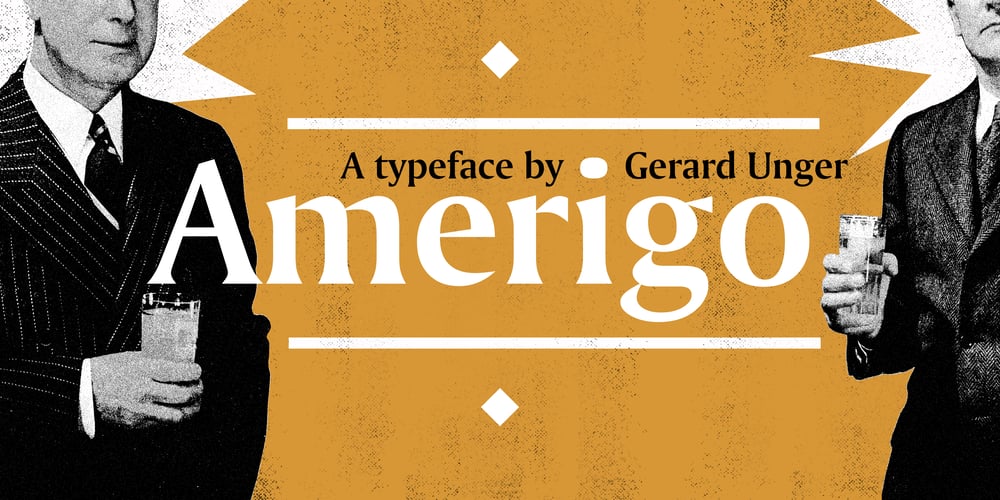
Amerigo BT
Amerigo BT font
Amerigo BT Font Family was designed by Gerard Unger and published by Bitstream. Amerigo BT contains 6 styles and family package options. An original Bitstream typeface prepared by Gerard Unger to provide a typeface of tapered stroke that will work well at lower resolutions.